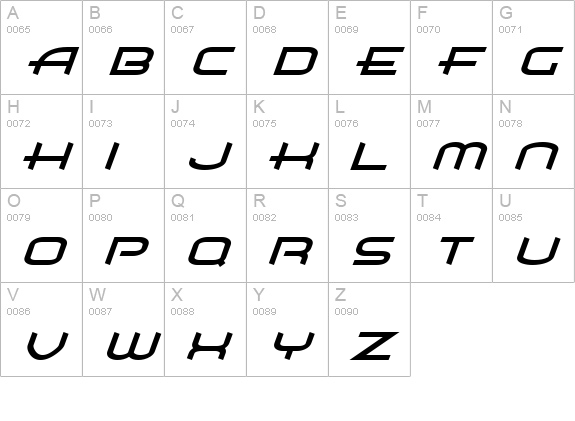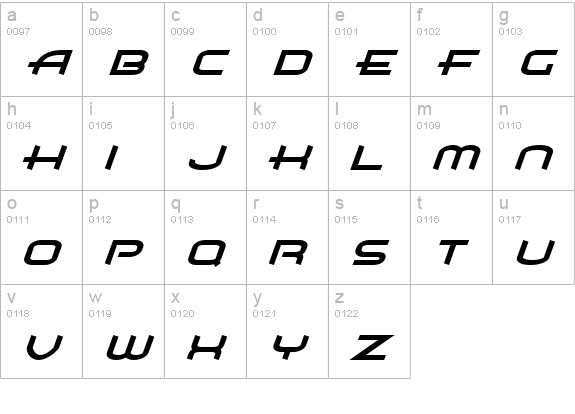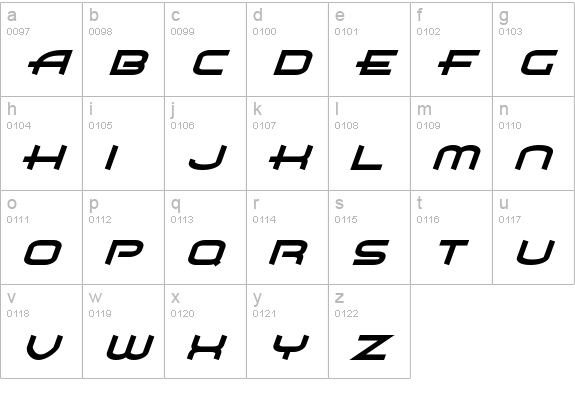
Air Flow BTN BoldOblique Font Details
Air Flow BTN BoldOblique is a dynamic and stylish font that exudes a sense of energy and movement. The bold and slanted design of this typeface adds a touch of sophistication to any project, making it perfect for creating eye-catching headlines or attention-grabbing designs. With its sleek curves and modern aesthetic, Air Flow BTN BoldOblique is ideal for adding a contemporary flair to your work. Best of all, this font is available for free download at FontsMarket.com, making it easily accessible to all designers and creatives looking to elevate their projects. So why wait? Download Air Flow BTN BoldOblique today and let your creativity soar to new heights!